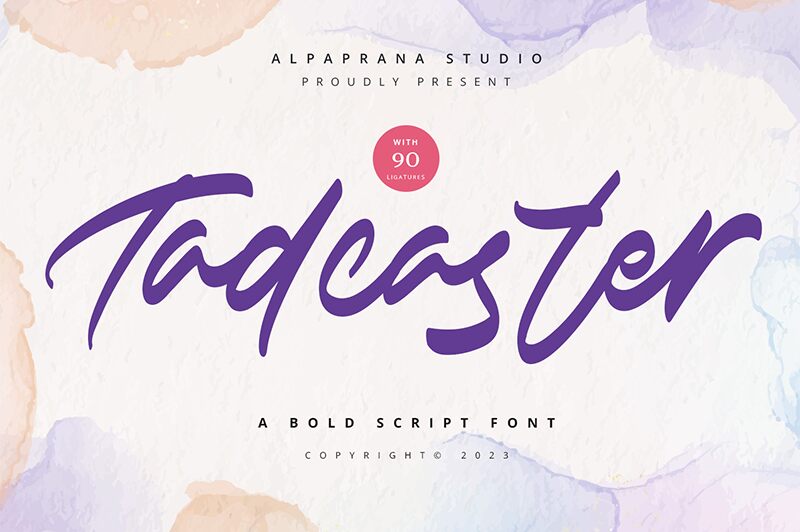
Tadcaster
Tadcaster font, designed by Alpaprana Studio, is a free handwritten font that combines expressive and flowing lines with a modern script touch. It exudes an energetic and confident vibe while maintaining casual elegance. The style beautifully balances clarity with artistic expression, making it ideal for impactful visual communication.